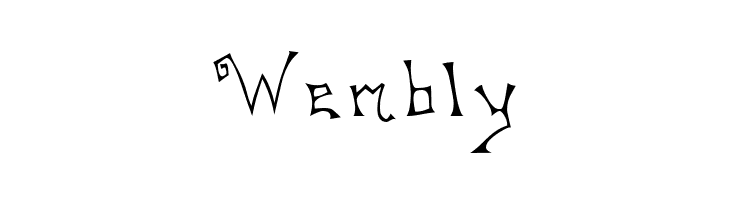
Jack's Candlestick Bold Expanded Font
- Font: Jack's Candlestick Bold Expanded
- Weight: Bold Expanded
A playful, handwritten font with a casual and whimsical style.
( Fonts by Levi Halmos )